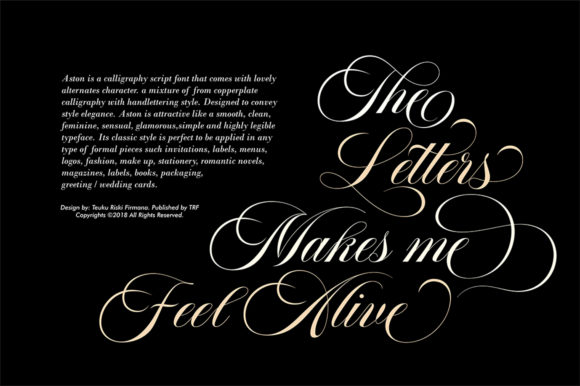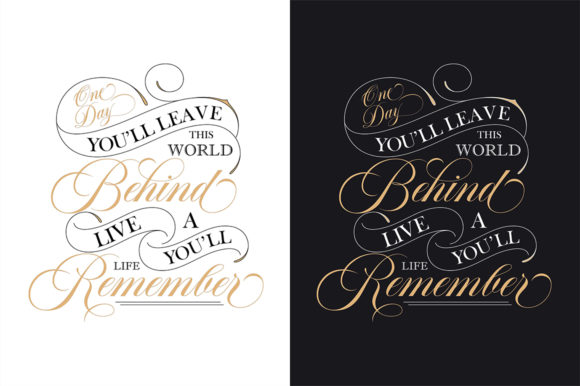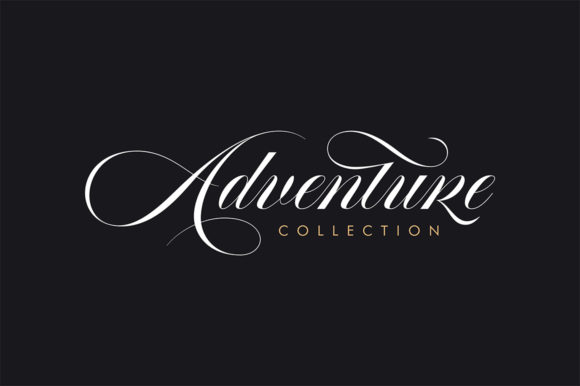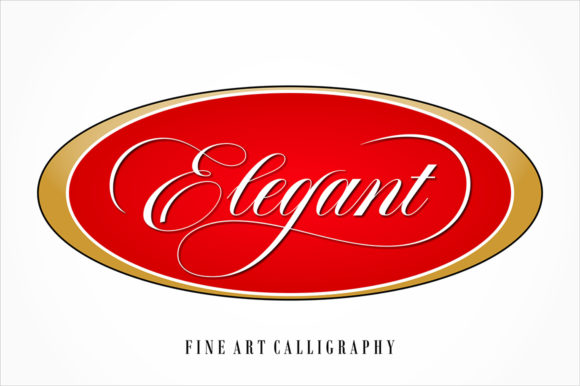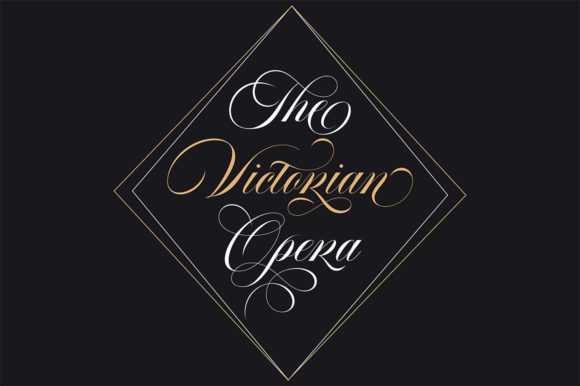
Aston Font
About Aston Font
Aston is a beautiful calligraphy script. It features an elegant and modern style that makes it perfect for creating stunning designs. It will elevate a wide range of design projects to the highest level, be it branding, headings, wedding designs, invitations, signatures, logos, labels, and much more!